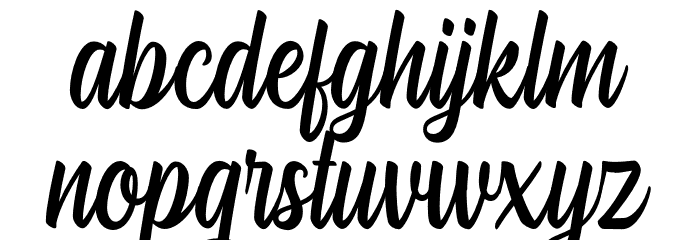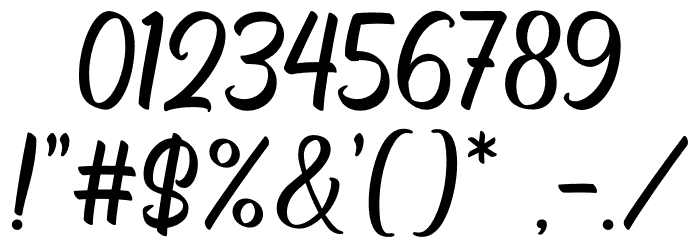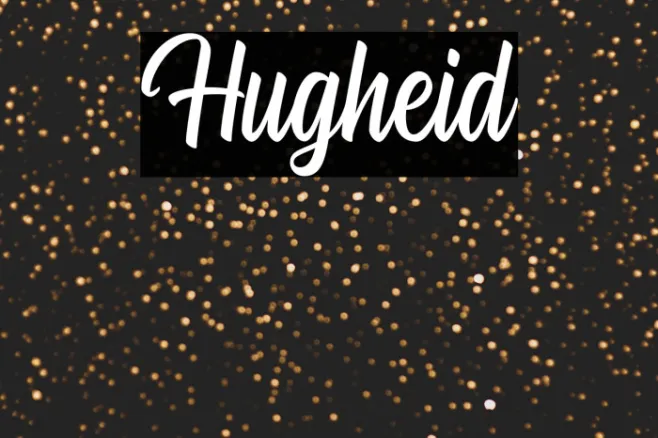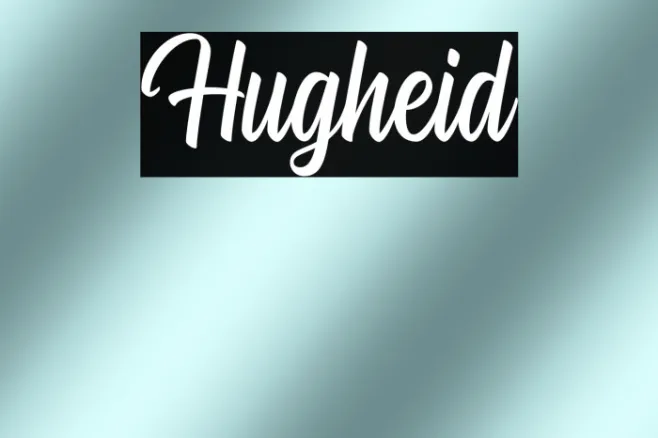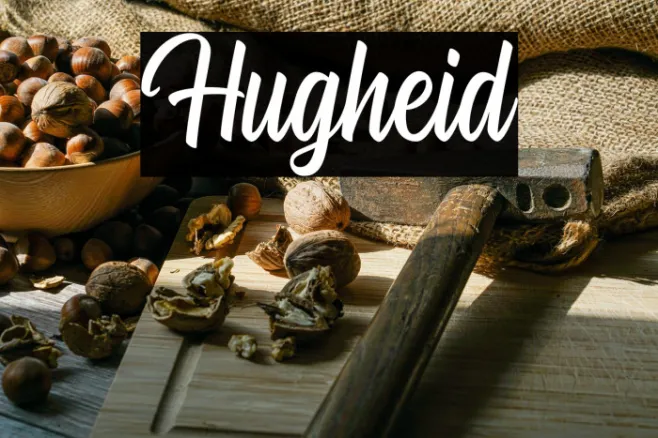
Hugheid Font
This font features a lively and flowing script style with a handwritten appearance. The uppercase letters are elegantly crafted with smooth curves and a slight slant, giving them a dynamic and sophisticated look. The lowercase letters maintain a consistent style, complementing the uppercase with their fluid and connected strokes. The numerals are bold and clear, ensuring readability while maintaining the overall aesthetic. Special characters are well-integrated, matching the font's playful yet refined nature. This font exudes a sense of elegance and creativity, making it suitable for a variety of design projects.
A lively, flowing script font with a handwritten style.
- Proposed Projects: Ideal for wedding invitations, greeting cards, branding, and logo design.
- Category: Script
- Overall Style: Elegant, Creative
- Use Case: Logos, Invitations, Branding